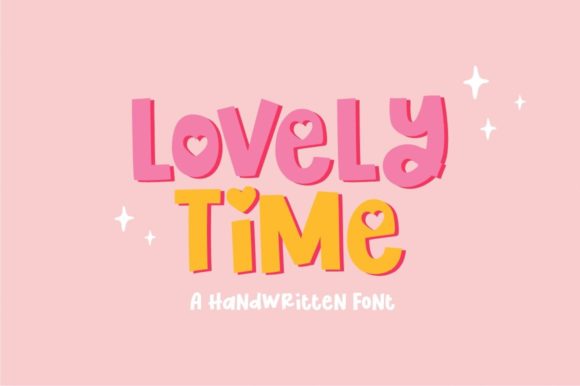
Looking for the perfect fonts to add a touch of cuteness and playfulness to your designs? Look no further than the Lovely Time Font collection! Created by the talented Reyrey Blue, these fonts are the epitome of adorableness and are sure to capture your heart.
Lovely Time is a display font family that is specifically designed for those who want to make their design projects stand out. With its playful and cute aesthetic, it's the perfect choice for any quirky and fun design work. Whether you're working on a baby shower invitation, a t-shirt design, a quote graphic, or even packaging and labels, Lovely Time will bring a delightful charm to your creations.
What sets Lovely Time apart from other fonts is the fact that it is lovingly made by hand. Every stroke and curve is crafted with great attention to detail and a whole lot of love. This gives the fonts a unique and authentic feel that is hard to find elsewhere. When you use Lovely Time, you can be confident that your designs will have that special touch that sets them apart from the rest.
One of the standout features of Lovely Time is its extensive range of glyphs and swashes. The font is PUA encoded, which means you can easily access all of the alternate characters, ligatures, and decorative elements that come with it. This opens up a world of possibilities for creating truly unique and eye-catching designs. Whether you want to add a fancy flourish to your typography or experiment with different letter combinations, Lovely Time has got you covered.
In addition to its versatility, Lovely Time also offers great functionality. It supports not only English but also other languages, making it accessible to a wider audience. The font includes both uppercase and lowercase letters, as well as numbers and symbols, giving you all the tools you need to bring your vision to life.
When you choose Lovely Time, you're not just getting a font, you're getting an entire collection of possibilities. Let your creativity run wild as you explore the endless design opportunities that this font family has to offer. From mugs to logotypes, Lovely Time will add a touch of whimsy and charm to everything it graces.